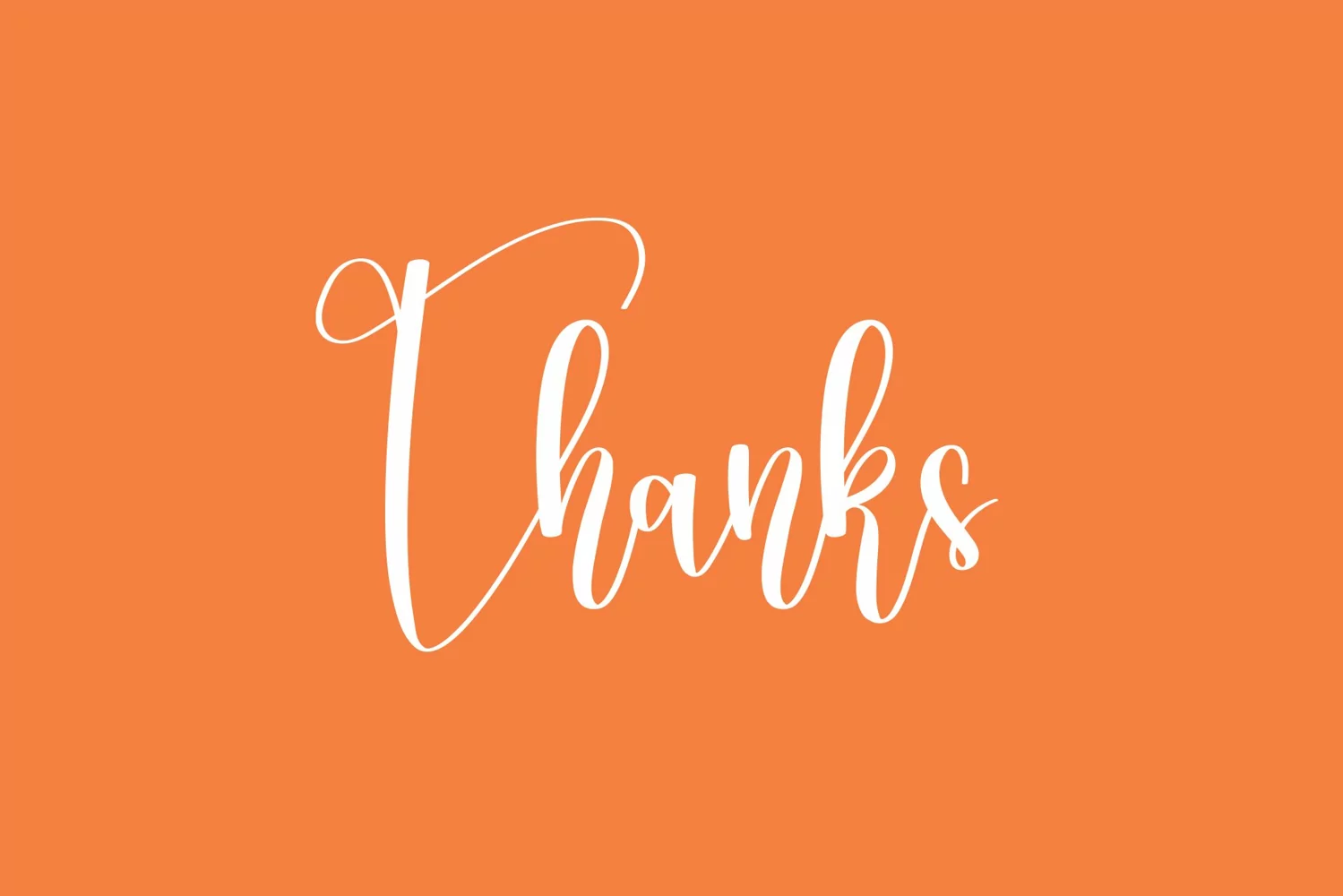
Hello School | Script font
Hello School Font is a popular and professional script font. It is Modern and elegant, this typeface is made of beautiful, creative strokes.